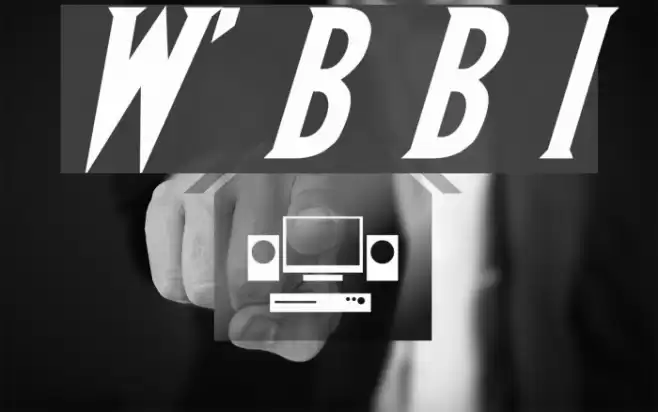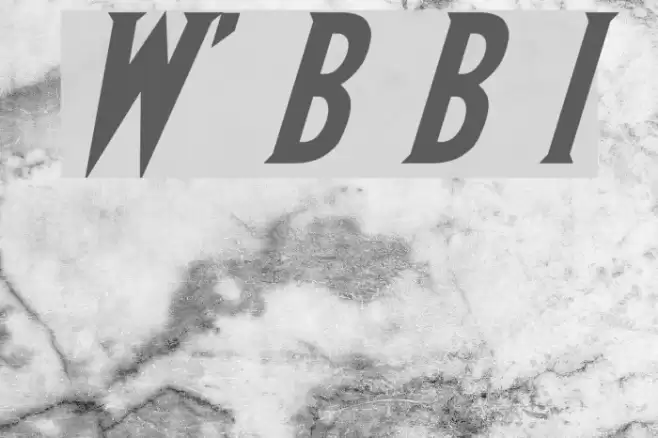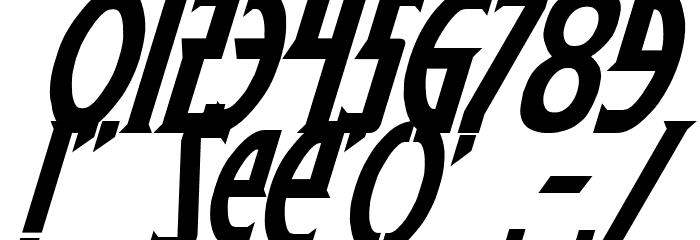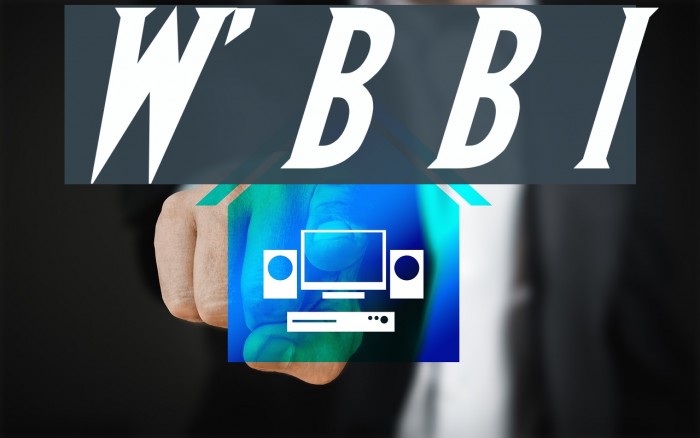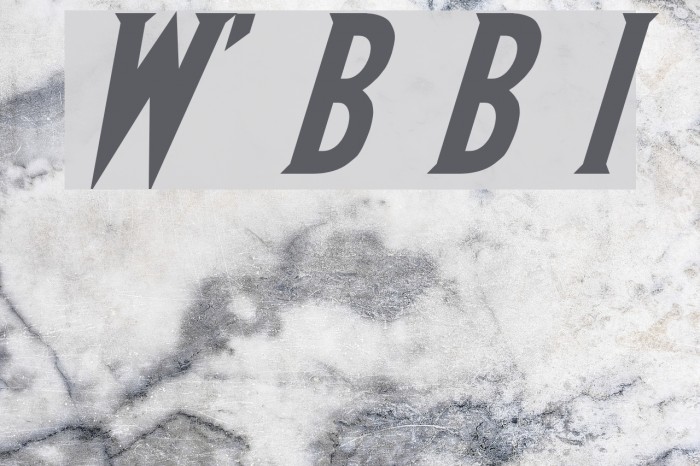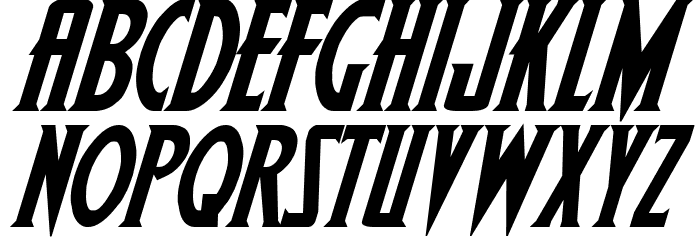
Wolf's Bane Bold Italic Font
Wolf's Bane Bold Italic Description
This font features a bold and italicized style with a distinct slant, giving it a dynamic and energetic appearance. The characters are sharply angled, with strong diagonal lines and pointed serifs that convey a sense of motion and intensity. The uppercase and lowercase letters maintain a consistent style, with the uppercase being particularly striking due to its exaggerated height and narrow width. The numbers and special characters follow the same bold and italicized design, ensuring uniformity across all elements. This font's unique style makes it stand out, ideal for attention-grabbing headlines or impactful logos.
A bold, italicized font with sharp angles and dynamic slant, perfect for striking headlines from Script fonts.
- Proposed Projects: Ideal for use in sports branding, action movie posters, or any project requiring a bold, energetic typeface.